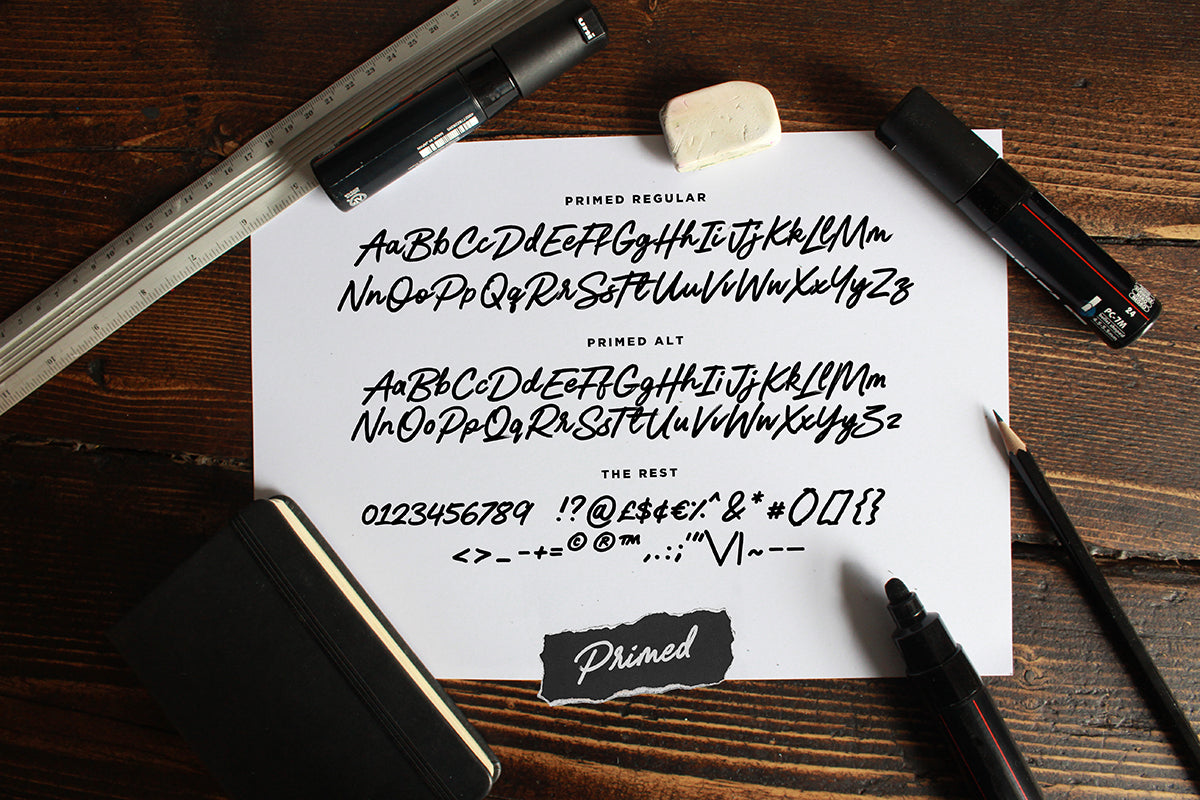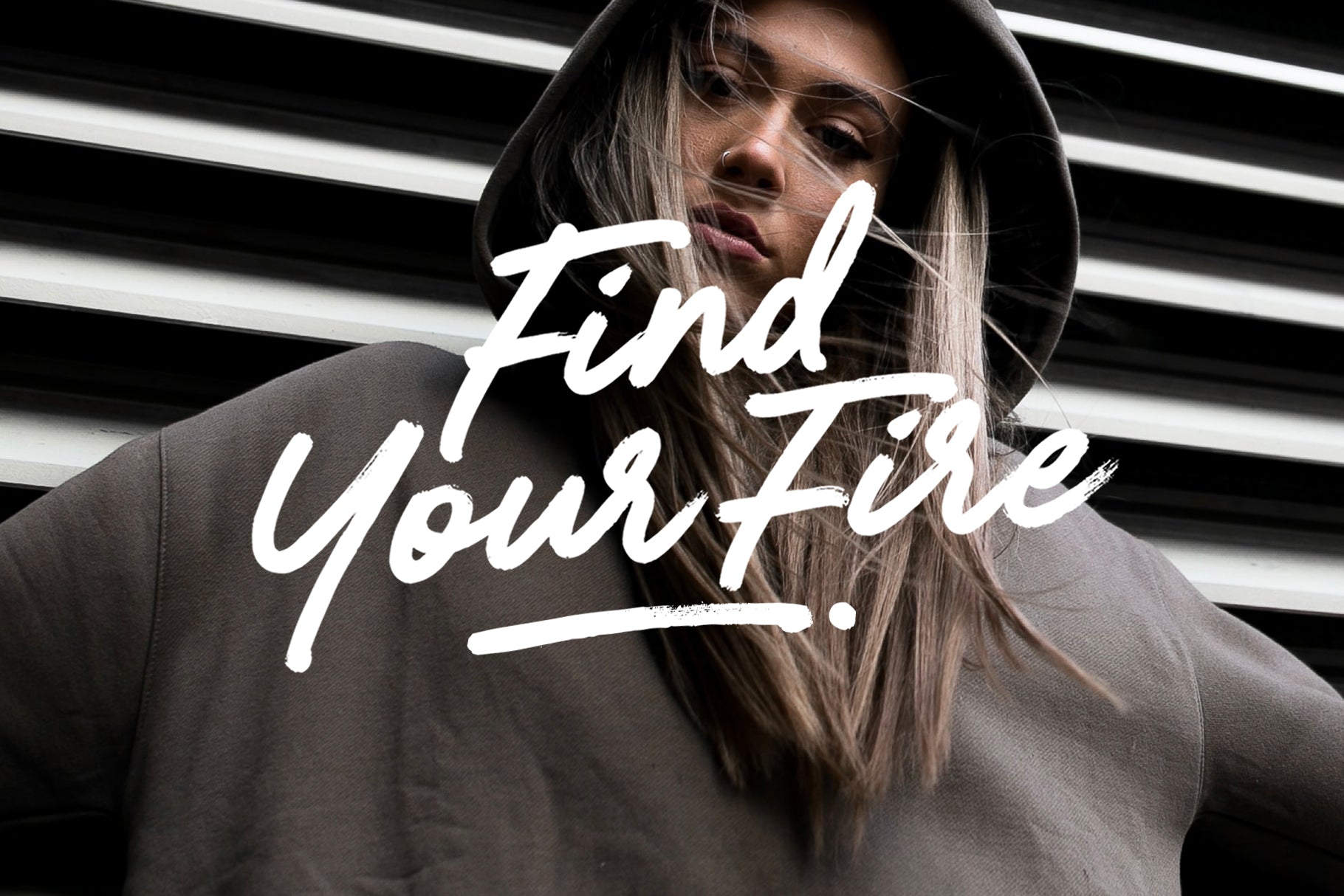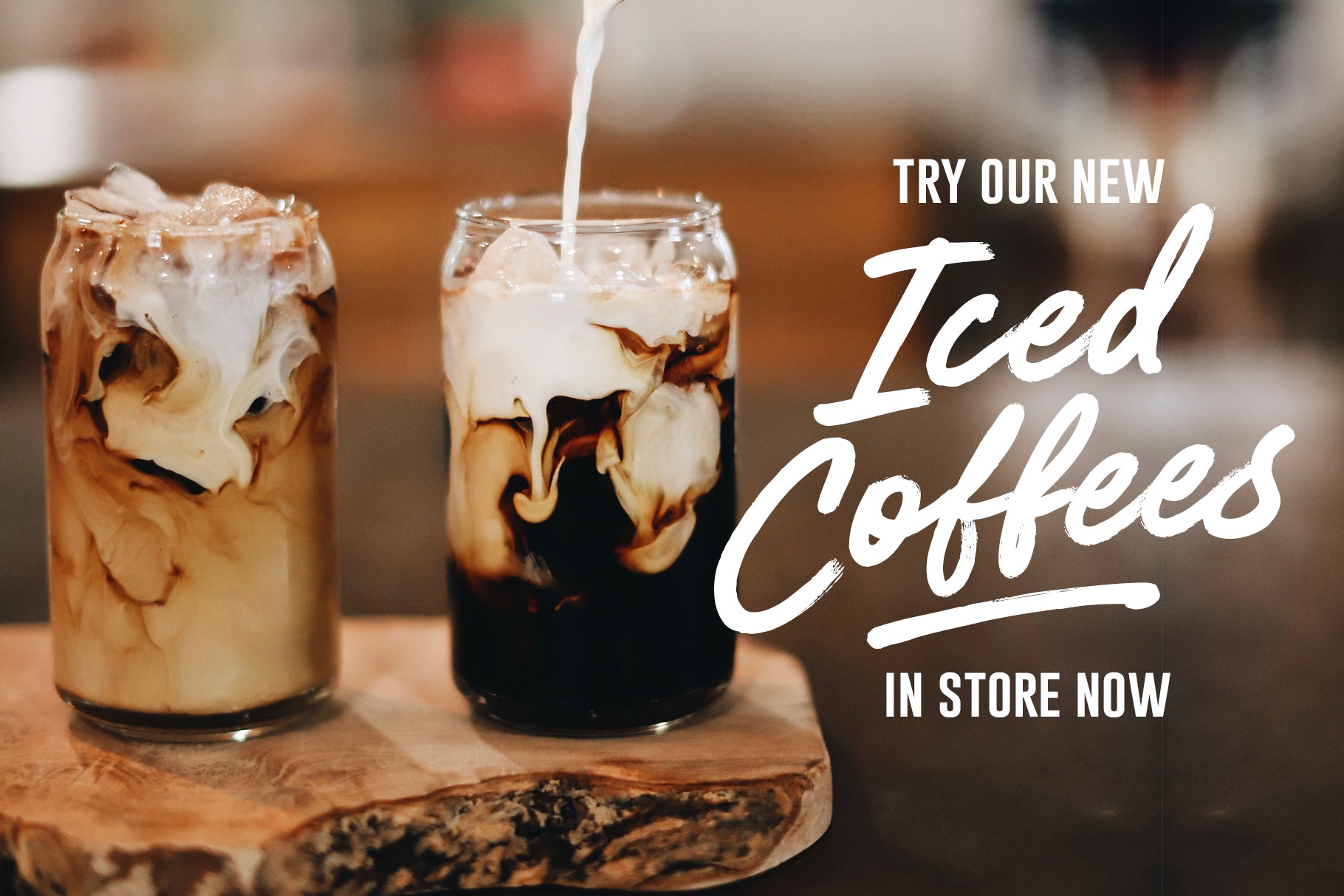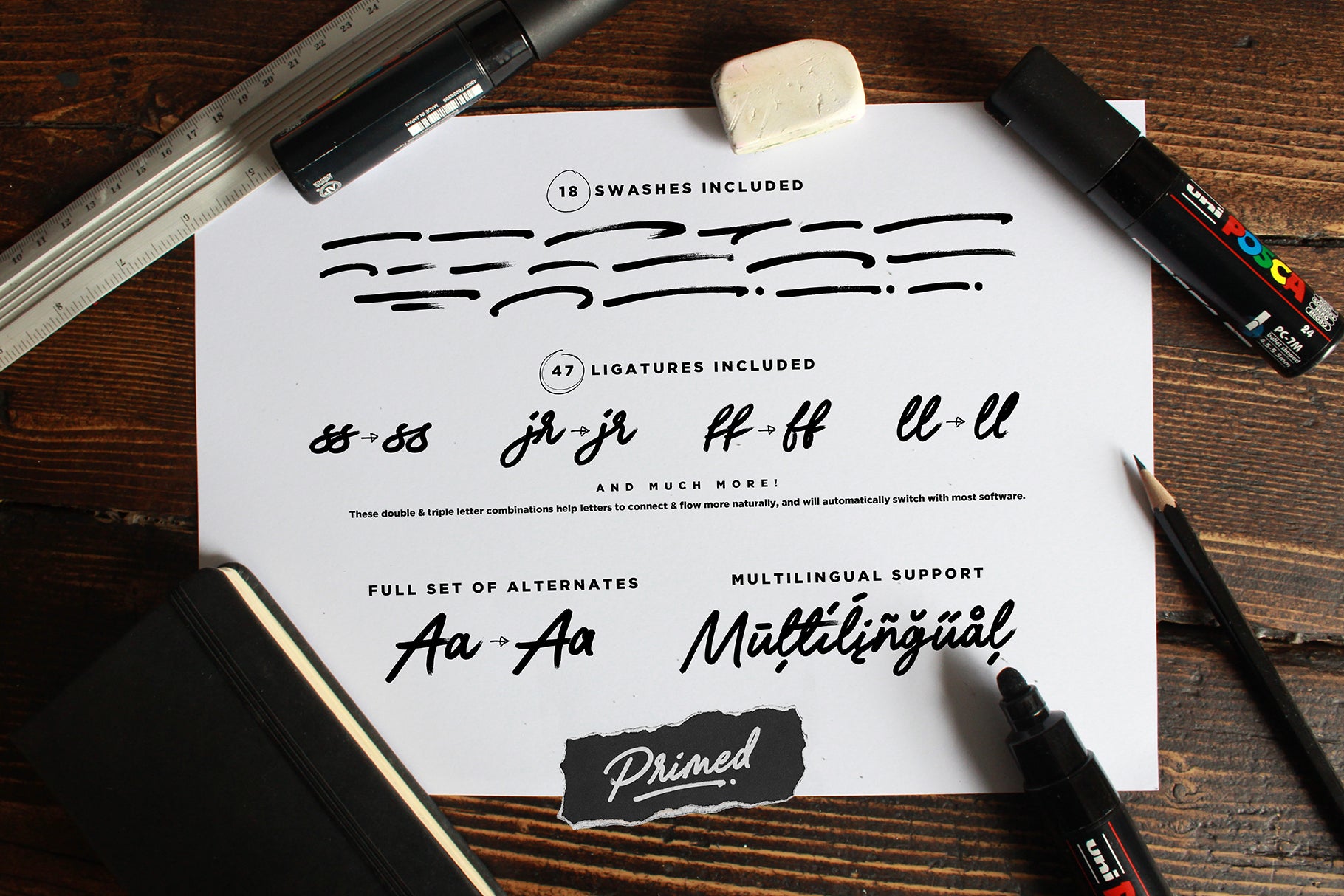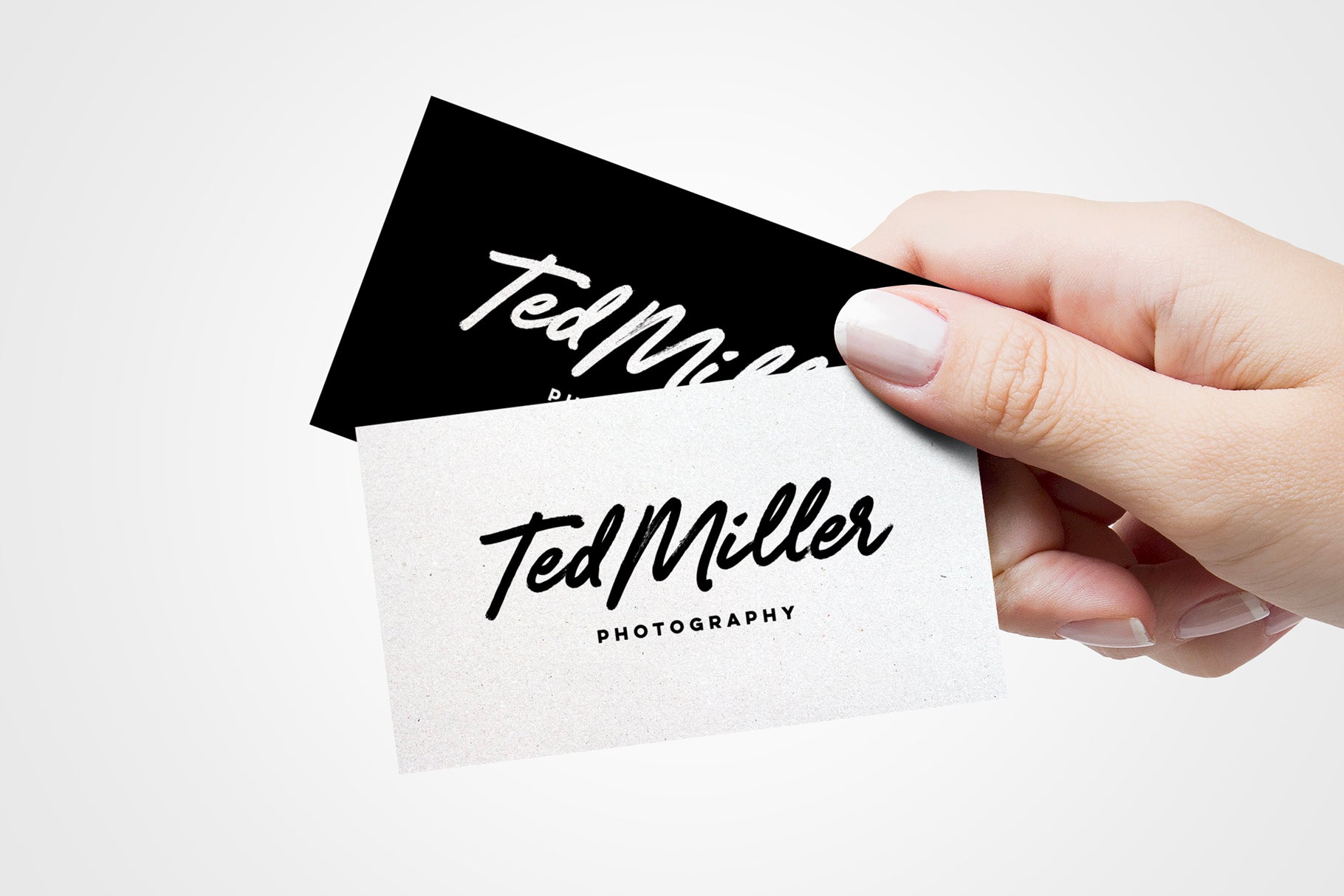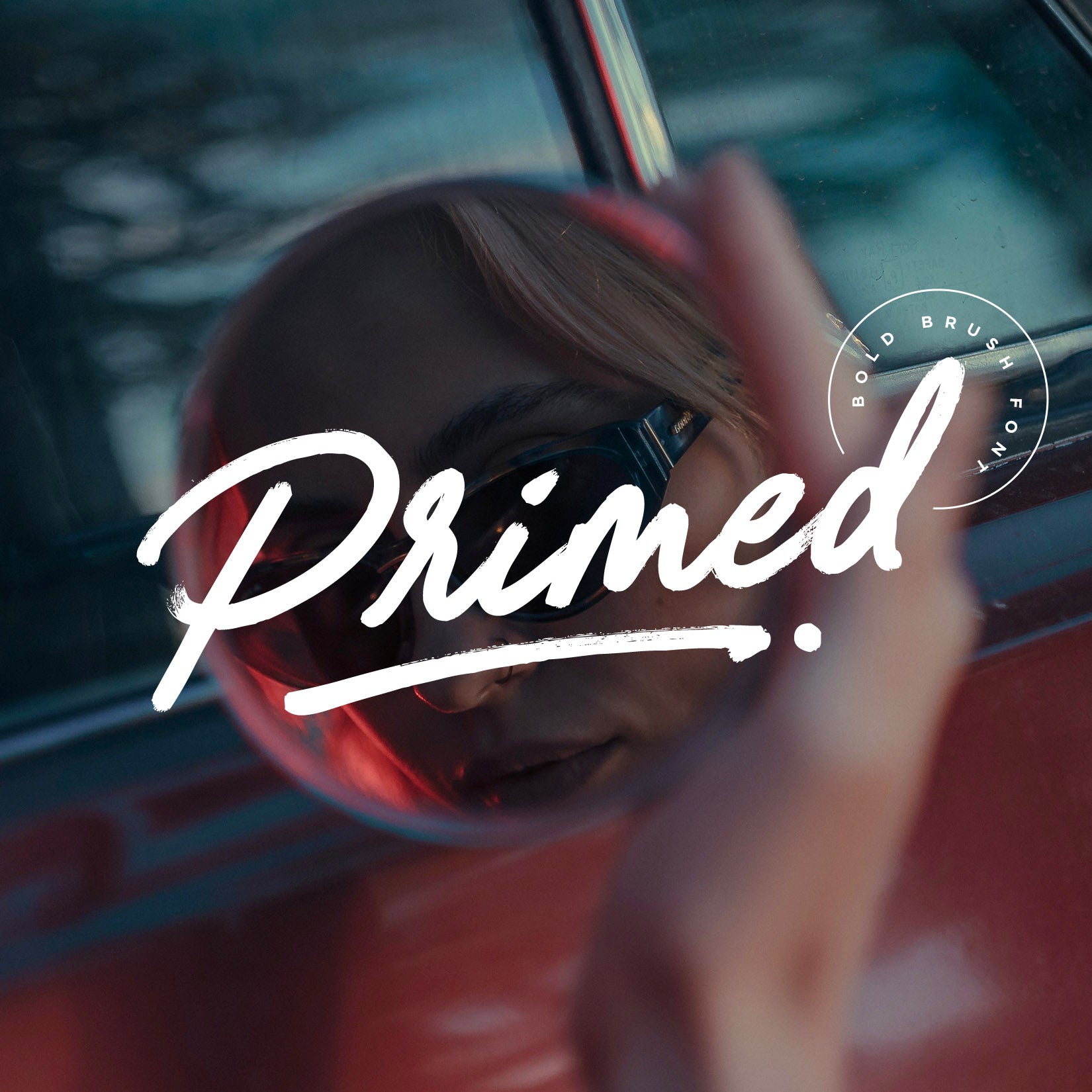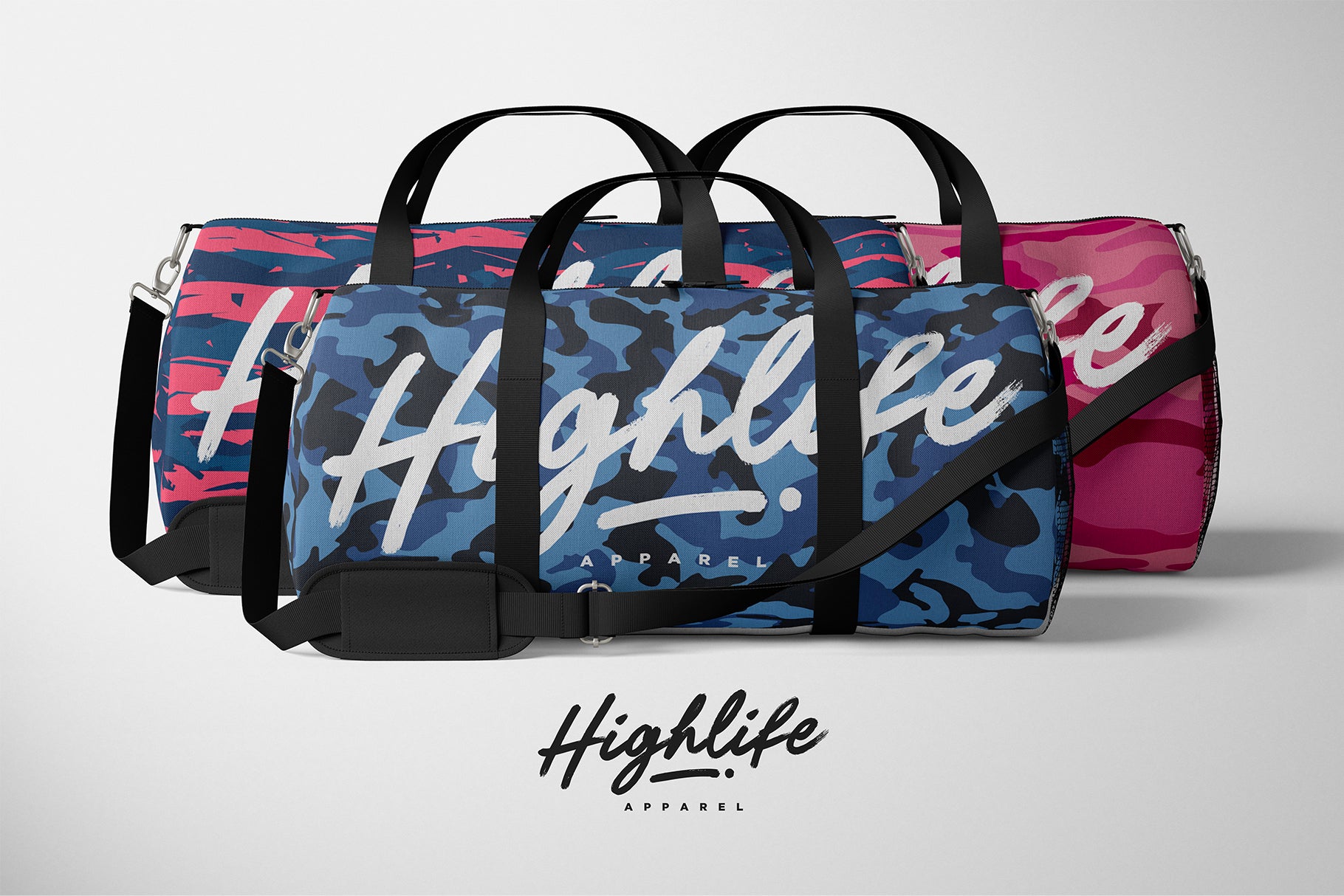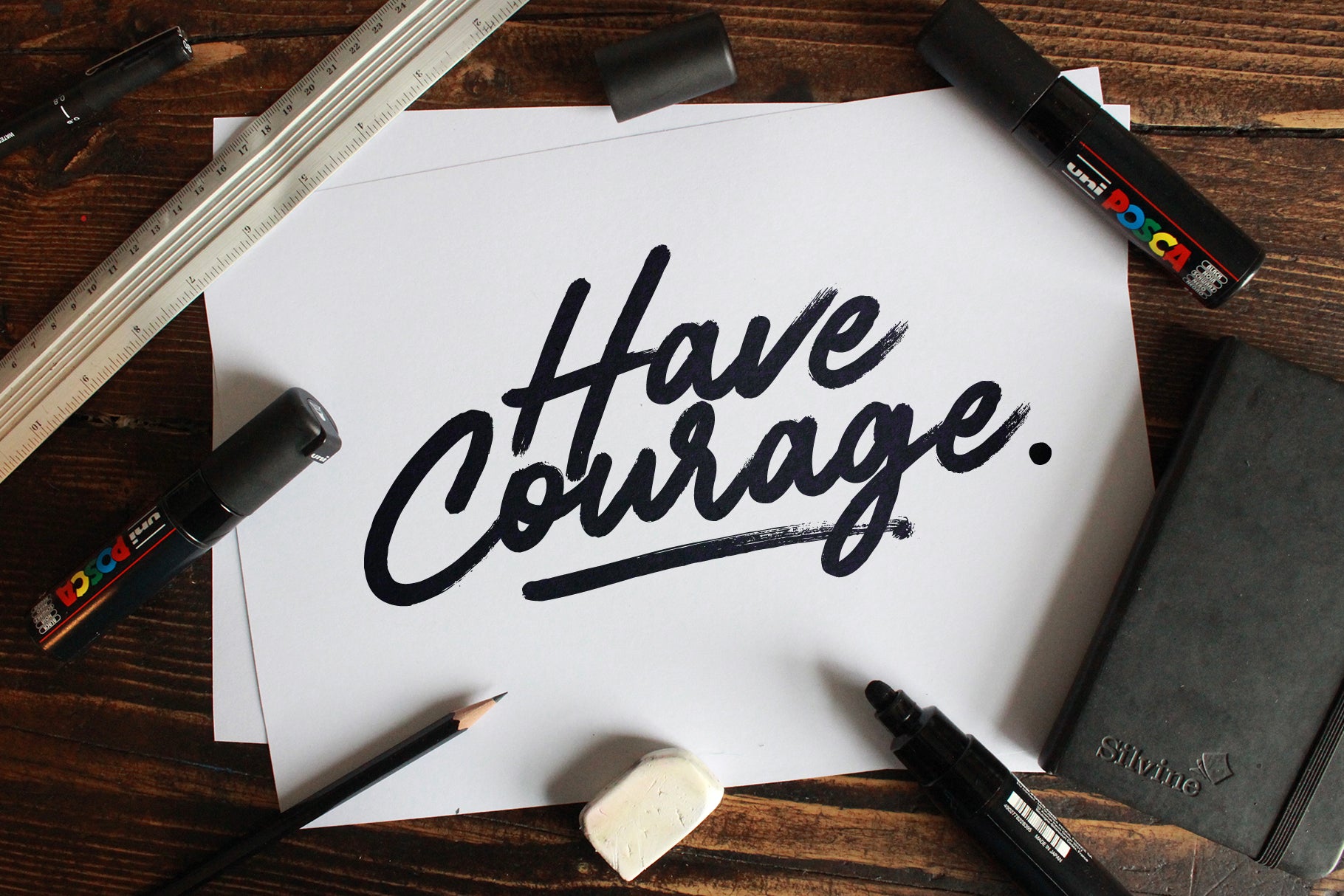
Primed Bold Brush Font
Primed Bold Brush Font is a hand-drawn, chunky brush font created with real marker pens, featuring a full alternate set of upper and lowercase characters, 18 swashes, and 47 ligatures for enhanced letter connectivity. It offers language support for multiple languages, including English, French, Spanish, and more.